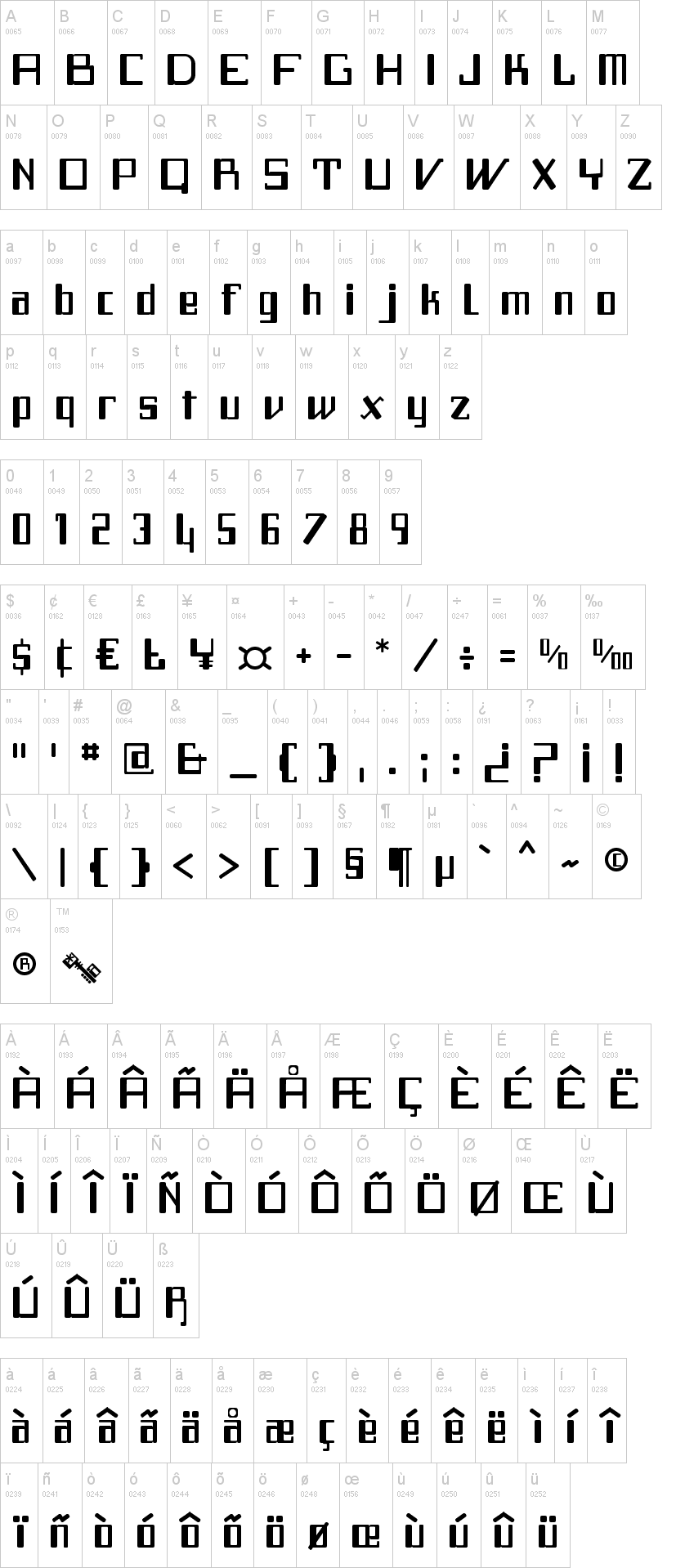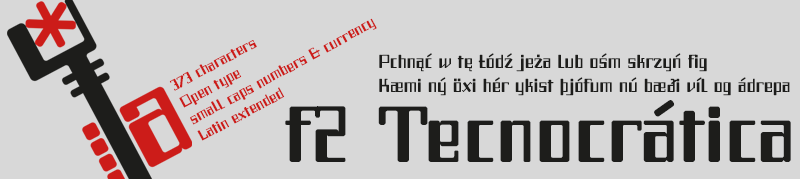
Note of the authorSans contrast, display, geometric, industrial and rounded finish with golden proportions in all elements of the letters, heights, widths, angles, antlers, metrics, etc... I have defined these elements using Perrin numbers, Fibonacci and Lucas sequences.